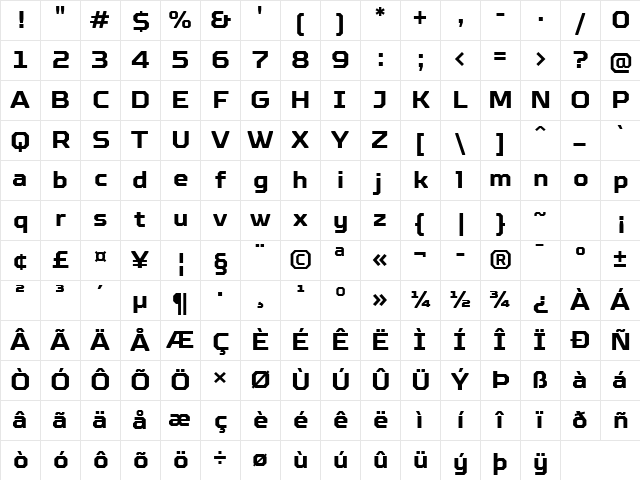
TT Octosquares Trl Bd Free Font
TT Octosquares Trl Bd
Style: Bd
Designer: TypeType
Design Context for TT Octosquares Trl
TT Octosquares Trl is a composed and adaptable typeface that performs quietly and consistently across a wide range of design contexts. Its bold stroke weight gives it real presence on the page.